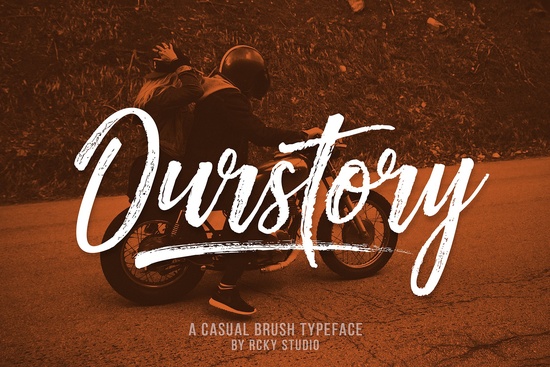
If you’ve been searching for a font that feels personal, textured, and effortlessly stylish, Ourstory Font Duo might be exactly what your next project needs. It’s not the kind of font that shouts for attention it whispers with character. Designed with hand-drawn brush strokes and subtle imperfections, it brings warmth to everything from greeting cards to branding mockups. Whether you’re running a small shop, designing wedding invites, or just experimenting with print-on-demand products, this duo gives you two complementary styles that work beautifully alone or layered together.
What makes this font duo stand out for creative projects?
Unlike rigid digital fonts, Ourstory was built to feel human. The texture mimics real ink on paper, which helps your designs avoid that “too perfect” look that can sometimes feel cold or corporate. One style leans casual and bouncy great for quotes or social media graphics. The other is slightly more refined, making it ideal for headers or product packaging. You don’t need fancy design skills to make them look good; they naturally pair well without clashing.
If you’ve enjoyed working with fonts like Swift Marker or Angela, you’ll appreciate how Ourstory balances personality with readability. And if you’ve ever tried Backpack or Gadiani for their relaxed vibe, this one slots right into that same creative toolkit but with its own unique rhythm.
Who should consider using Ourstory in their workflow?
- Print-on-demand sellers Use it for mugs, tote bags, or t-shirts where a handwritten touch sells better than sterile typography.
- Small business owners Perfect for Instagram stories, email headers, or boutique packaging that wants to feel “made by hand.”
- Crafters and DIY designers Works great with Cricut or Silhouette machines for vinyl decals, scrapbooks, or custom labels.
You don’t need to be a pro to get professional-looking results. Even simple combinations like pairing the script version with a clean sans-serif instantly elevate basic flyers or digital ads. If you’ve used Softie Note before, you know how much difference a soft, textured script can make. Ourstory follows that same philosophy but adds more contrast between its two weights, giving you flexibility depending on the mood you want to set.
How do I use both fonts in the duo effectively?
The trick is to treat them as partners, not twins. Try using the thicker, bolder brush style for headlines or focal words things like “Sale,” “Welcome,” or “Handmade With Love.” Then switch to the lighter, more delicate script for supporting text: dates, descriptions, or taglines. This contrast creates visual hierarchy without needing extra colors or effects.
Here’s a quick tip: avoid using both styles at full size in the same line. Instead, let one lead and the other follow. For example:
- Main headline: Ourstory Bold Brush
- Subhead or caption: Ourstory Light Script
This keeps your layout balanced and easy to read especially important for mobile viewers or printed materials viewed from a distance.
Where does it fit compared to other handwritten fonts?
It sits comfortably between playful and polished. Not as chaotic as some graffiti-style scripts, but not as stiff as formal calligraphy either. Think of it as the font equivalent of a well-loved journal personal, a little worn in the best way, and full of charm.
A few practical ideas to get started:
- Create a “thank you” card with the bold style for the message and light script for your signature.
- Design Etsy shop banners where product names pop in brush, and details fade softly in script.
- Layer both fonts over watercolor backgrounds for wedding stationery or baby shower invites.
- Use the light script for Instagram quote posts it photographs beautifully even on textured paper.
Next step: Try it with something simple first
Don’t overthink it. Pick one small project maybe a printable gift tag or a social media story and experiment. See how the textures react when you change colors or add shadows. Play with sizing. Watch how the letters connect (or don’t) and adjust tracking if needed. Sometimes the best way to learn a new font is just to use it no tutorials required.